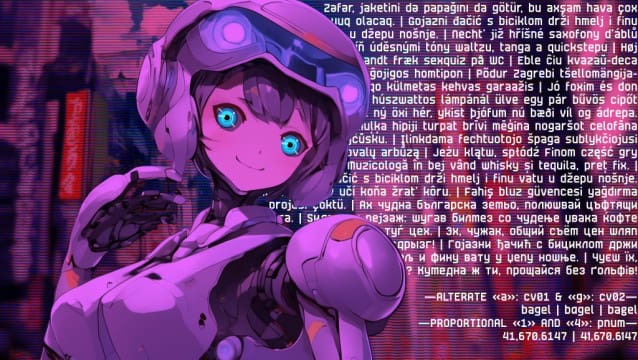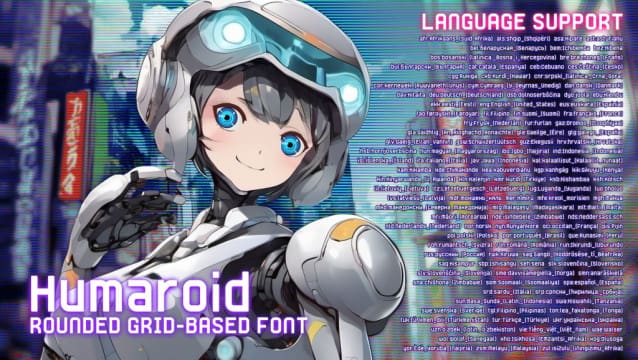
Humaroid Font is a vector redesign/upscale of Born2bSporty. Ideal at 16px (12pt) increments!
| Classification: | Display Fonts, Sans Serif Fonts, Techno / Futuristic Fonts |